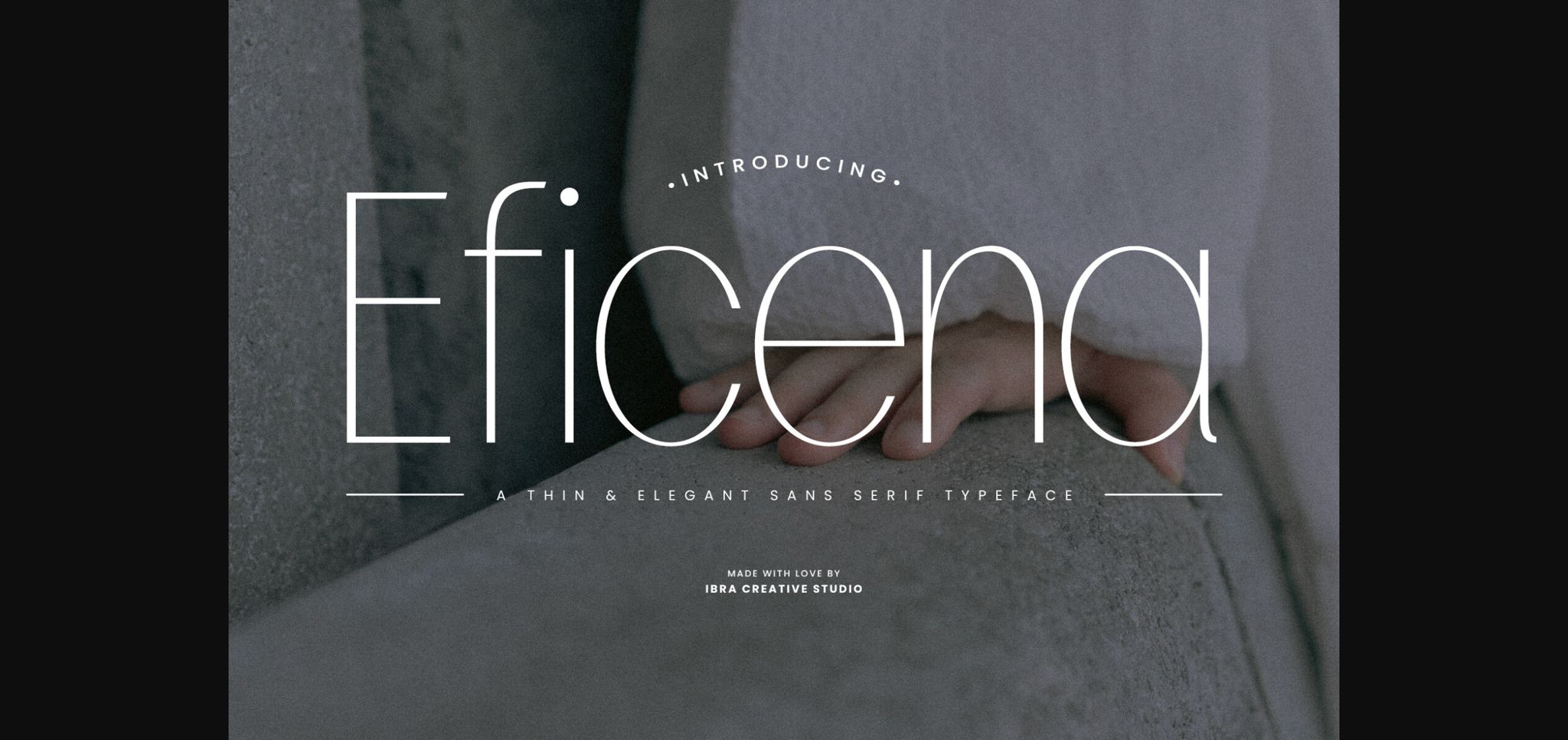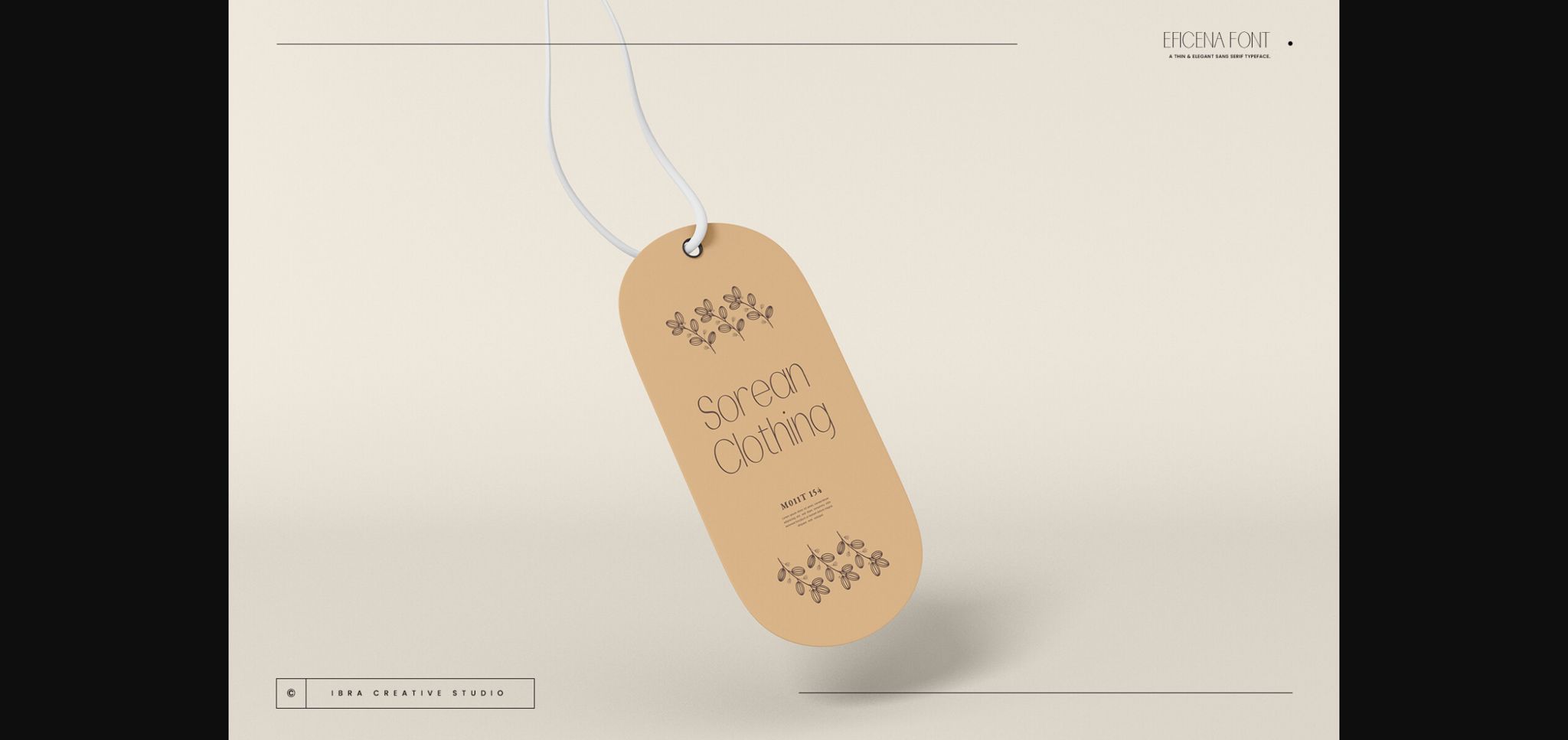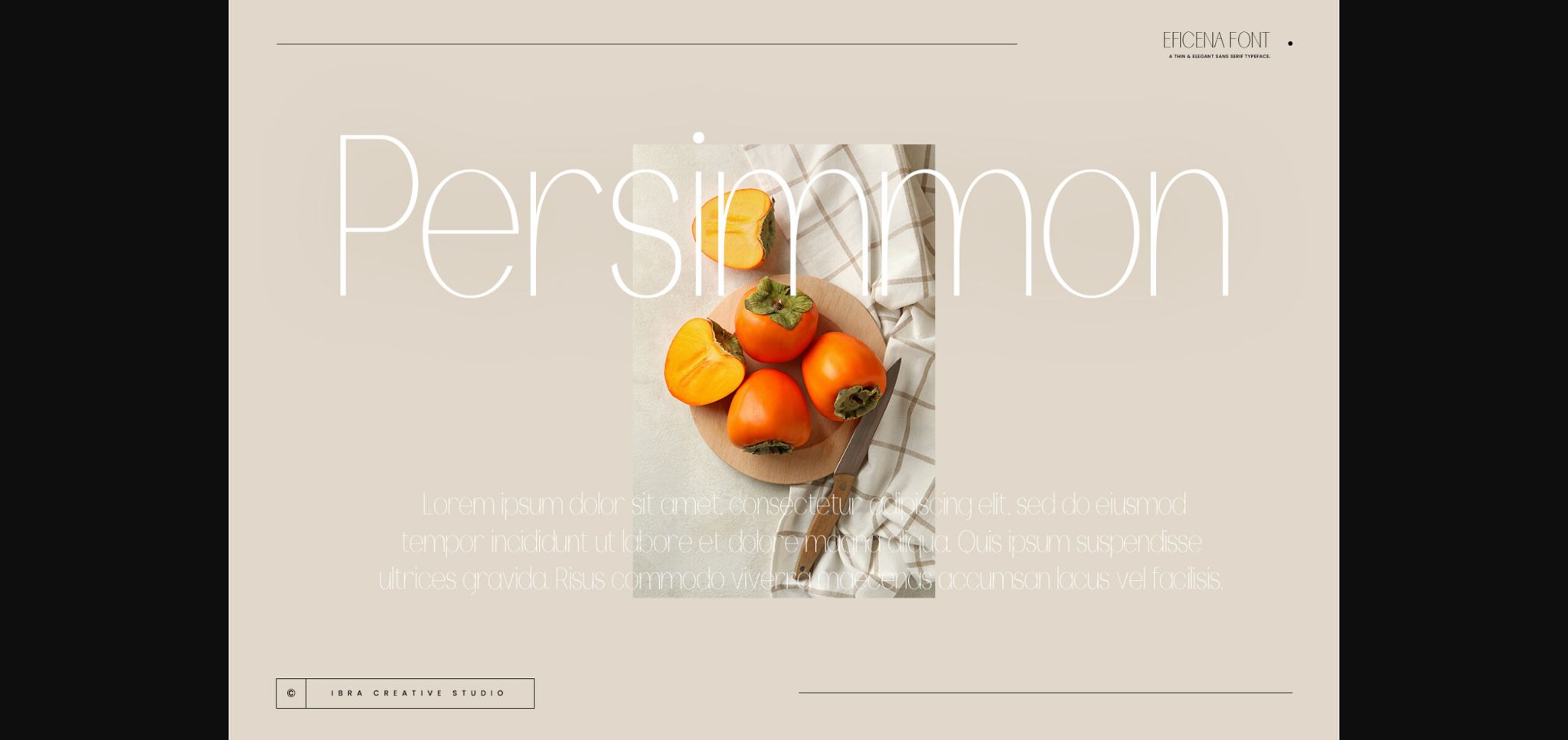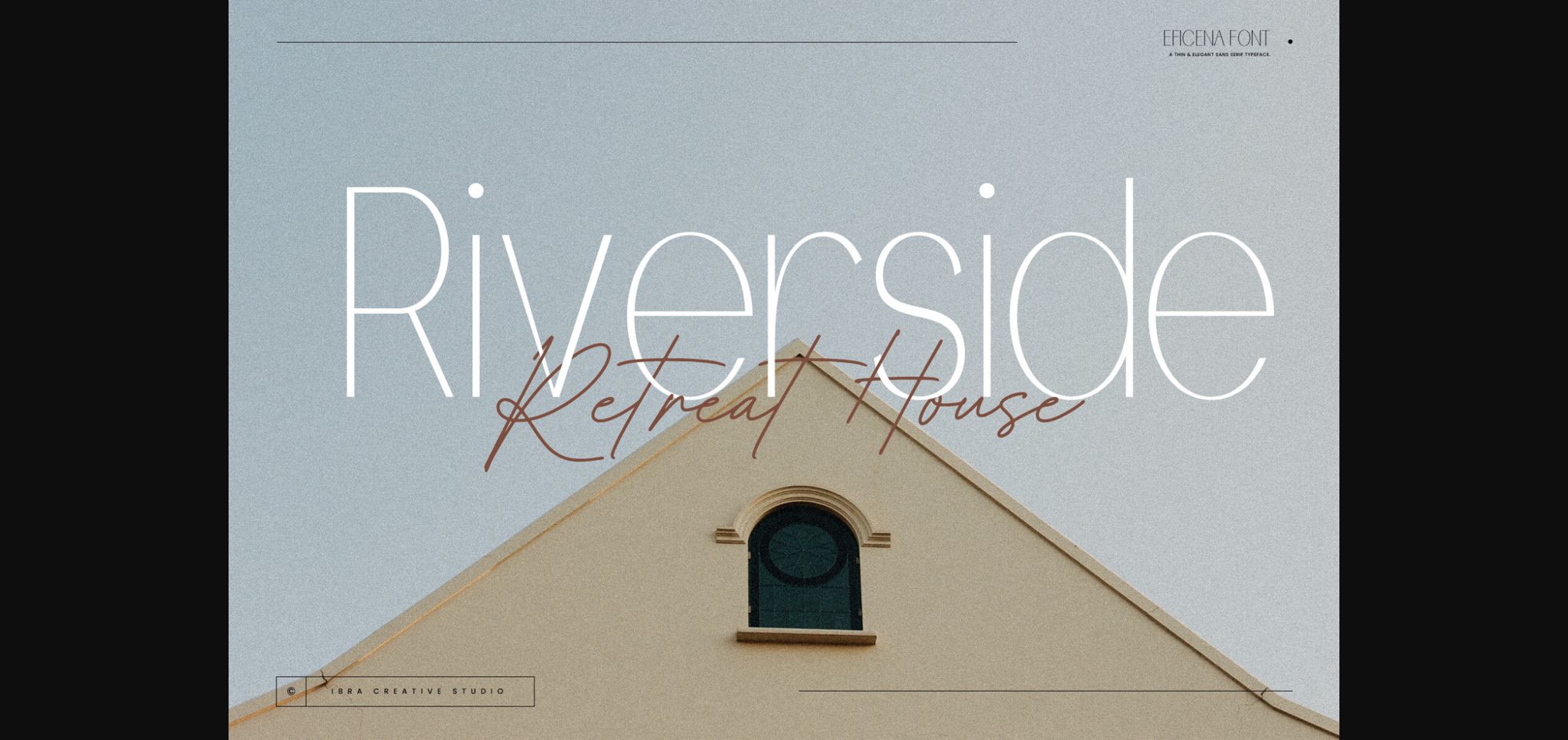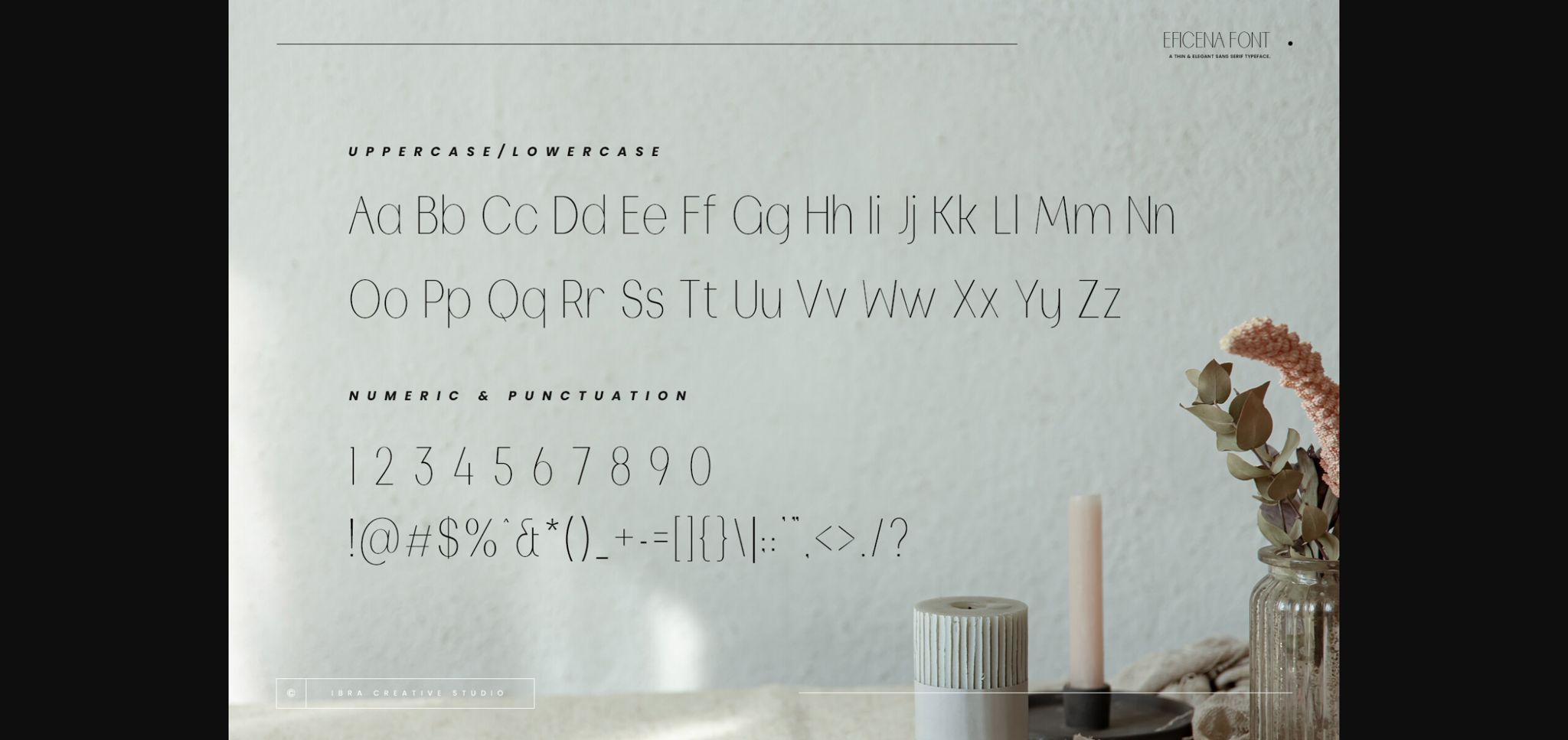
About Eficena Font
Eficena, a thin and elegant sans serif typeface, exudes sophistication and refinement with its delicate lines and graceful curves. Each letter in Eficena embodies a sense of understated elegance, making it perfect for projects that require a touch of sophistication. Whether used for luxury branding, editorial design, or minimalist layouts, Eficena effortlessly adds a sense of class and style.